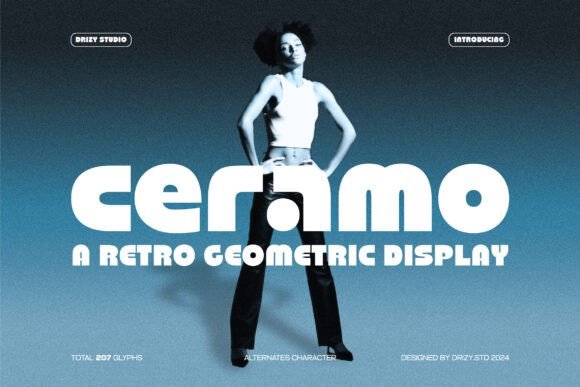
Crafting Winter Vibes with Ceramo Font
As the winter season approaches, designers are no doubt brainstorming fresh ideas for their latest projects. One thing that often sparks inspiration is flipping through old photographs or vintage magazines, uncovering forgotten gems that evoke a sense of nostalgia. For many, it’s this retro charm that sparks a creative moment – a fusion of the old and the new that sets the tone for an exciting project.
Enter Ceramo Font, a bold and striking display font designed to capture the essence of retro style with a modern geometric twist. This versatile font is perfect for Winter Streetwear brands looking to add a unique, vintage-inspired flair to their seasonal collections. With its sharp lines and geometric forms, Ceramo Font is a great choice for fashion-forward brands seeking to elevate their designs and stand out in a crowded market.
Ceramo Font Key Features
- Font Family: Ceramo Font is a sans-serif font family designed for modern and clean typography.
- Character Count: The font family includes over 200 characters, ensuring comprehensive language support and versatility in diverse design projects.
- Unique Characteristics: The Ceramo Font features clean lines, geometric shapes, and a minimalist aesthetic, making it ideal for modern branding, digital products, and editorial design.
Ceramo Font Review
Overall, I think Ceramo Font is a solid choice for your next design project, but it’s not without its flaws.
- Ceramo Font has a clean, modern aesthetic that makes it perfect for minimalist designs.
- The font is highly legible, even at smaller sizes, making it great for body text.
- The font family includes a range of weights, from light to bold, giving you plenty of flexibility.
- The font lacks personality and flair, which may make it feel a bit generic in certain contexts.
- The font family is not as extensive as some other popular fonts, which may limit your options.
- The font may not be suitable for projects that require a lot of bold or italic text, as it can feel a bit uneven.
Ceramo Font is a safe choice for designers who want a clean, modern font that’s easy to read. While it may not stand out from the crowd, it’s a solid foundation for your next project. If you’re looking for a font with a bit more personality, you may want to consider other options. But if you’re looking for a reliable, easy-to-use font, Ceramo Font is a good choice.
Tips for Getting the Most Out of Ceramo Font
To get the most out of Ceramo Font, consider the following tips:
- Use Ceramo Font for headings and titles to create a clean and modern look.
- Combine Ceramo Font with other fonts to create a unique and visually appealing design.
- Experiment with different font sizes and styles to create emphasis and hierarchy in your design.
Common Use Cases for Ceramo Font
Ceramo Font is commonly used in:
- Graphic design and branding projects.
- Print and digital marketing materials.
- Alternatives to Ceramo Font
Montserrat is a modern sans-serif font that is perfect for digital interfaces, websites, and mobile apps. It has a clean and minimalist design that makes it ideal for use in headings, titles, and body text. Montserrat is a great alternative to Ceramo Font because it has a similar sans-serif feel, but with a more geometric and modern aesthetic.
Comparison: While Ceramo Font has a more rounded and friendly feel, Montserrat is more angular and modern. Montserrat is also more versatile and can be used in a wide range of contexts, from fashion and technology to finance and healthcare.